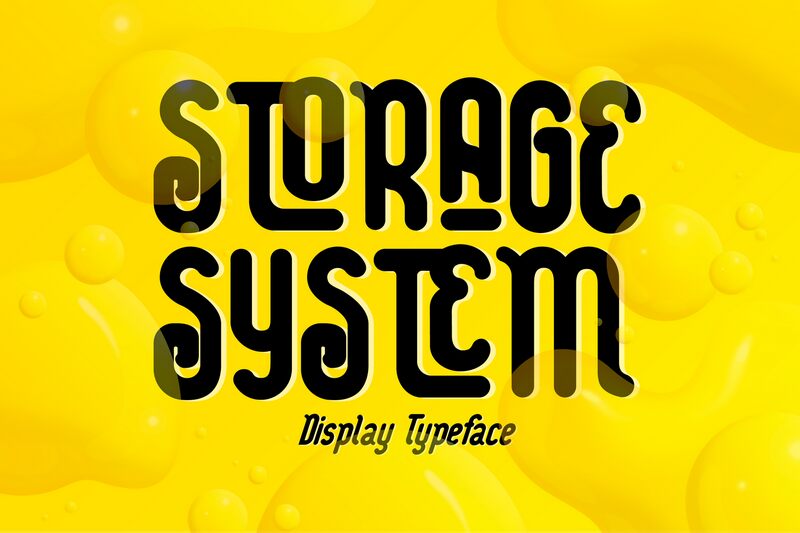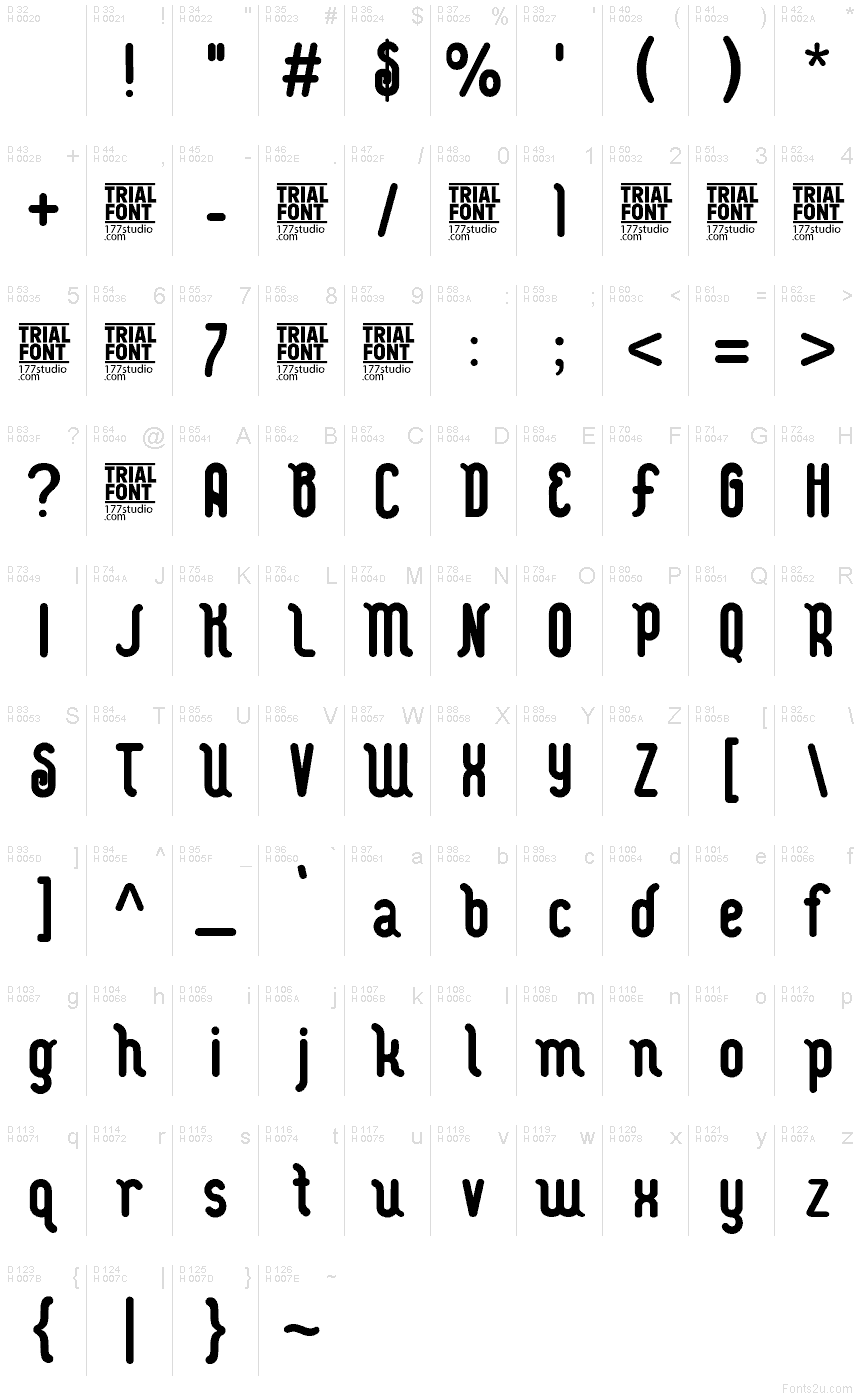
STORAGE SYSTEM DEMO Regular
Storage System font by 177Studio is a free decorative display typeface with bold vertical strokes and playful, inky curls tucked into every letter. Its tall, condensed structure stacks words neatly while the swirling interior shapes add a hypnotic, almost psychedelic energy. The result feels both retro and futuristic—like vintage poster lettering wired up to a neon sign.
Using Storage System, headlines don’t just sit on the page, they coil and unfurl, making this free font a natural fit for gig posters, album covers, nightclub flyers, edgy branding, packaging, and bold social graphics. Keep it large so the inner spirals stay crisp, and pair it with a clean geometric sans for body text to let its ornate character really stand out.